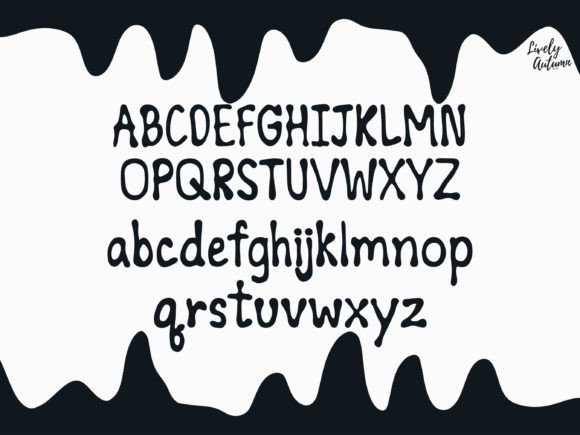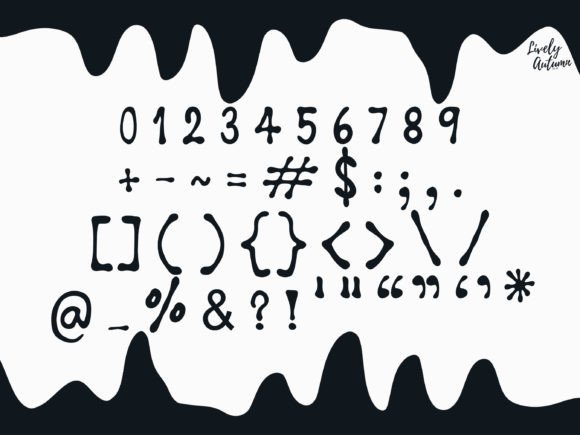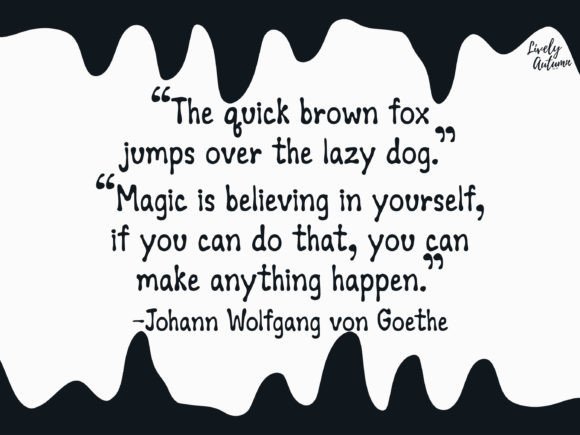
Introduction to Magical Ink Font
Magical Ink Font is a sans serif handwritten font that writes with ink.
Perfect for your Halloween theme project, personal projects, and various projects From invitations to posters, social media graphics, journals, and much more.
Magical Ink Font offers exceptional quality and versatility, making it a valuable addition to your design toolkit. Whether you’re creating for personal projects or commercial use, Magical Ink Font delivers professional results.